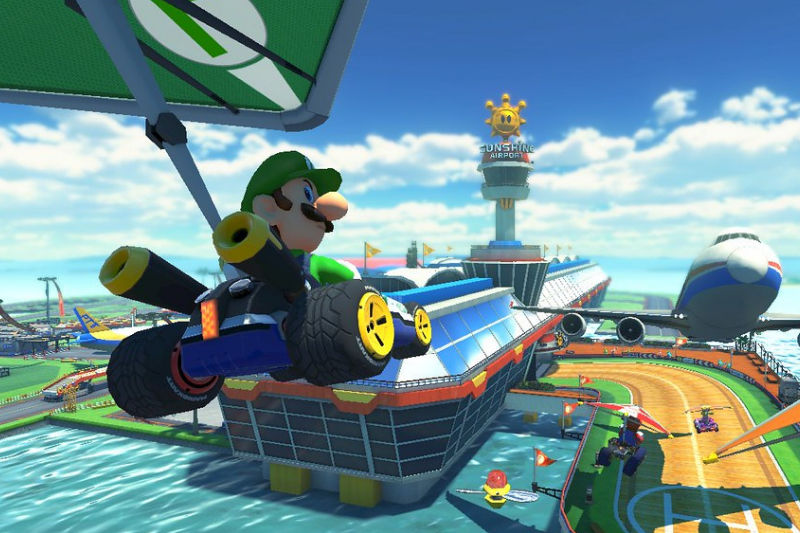
Mario Kart Font Generator
About the Mario Kart Font Generator
Mario Kart font style captures the joy and chaos of Nintendo's beloved racing franchise β€” bright, rounded, friendly letterforms that feel like they're perpetually mid-drift and covered in item boxes. The game's title treatments and in-game text are instantly recognizable, making this style a go-to for gaming-themed designs, Nintendo fan art, and retro game nostalgia projects.